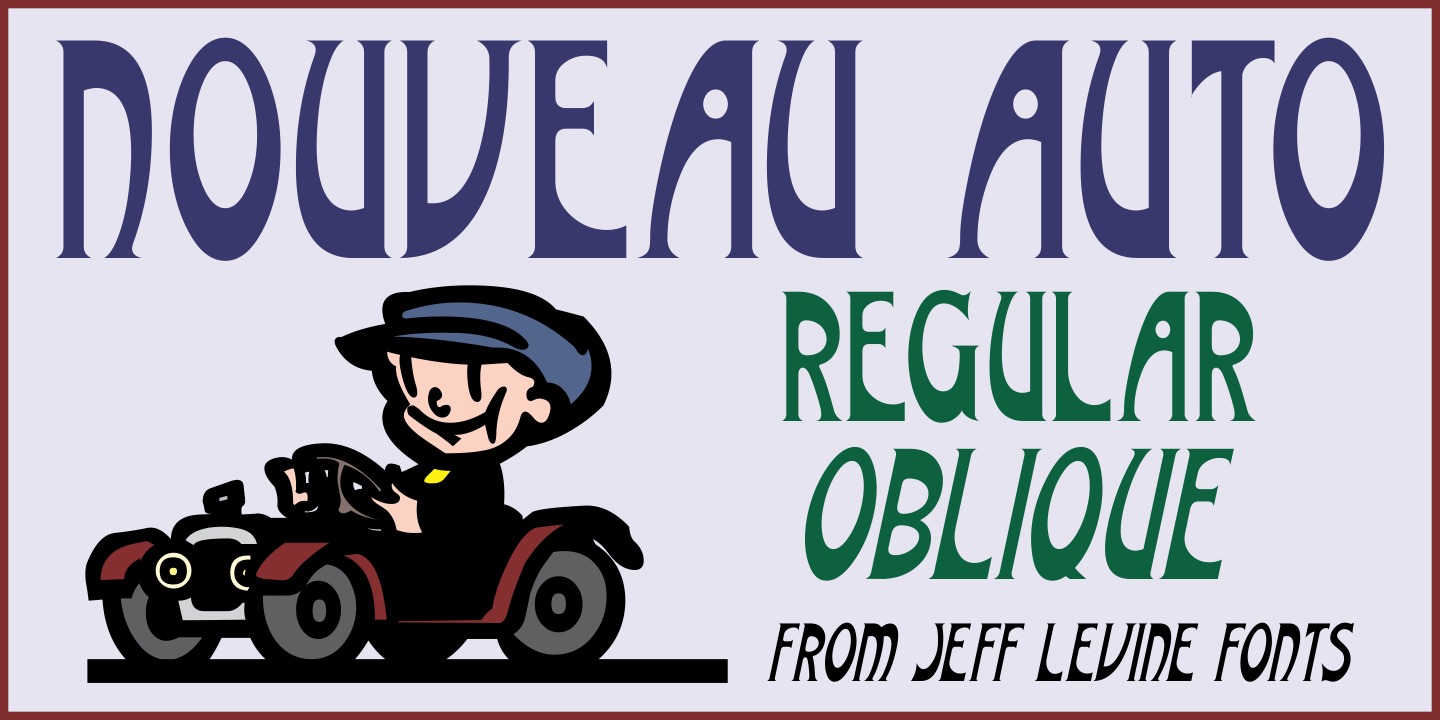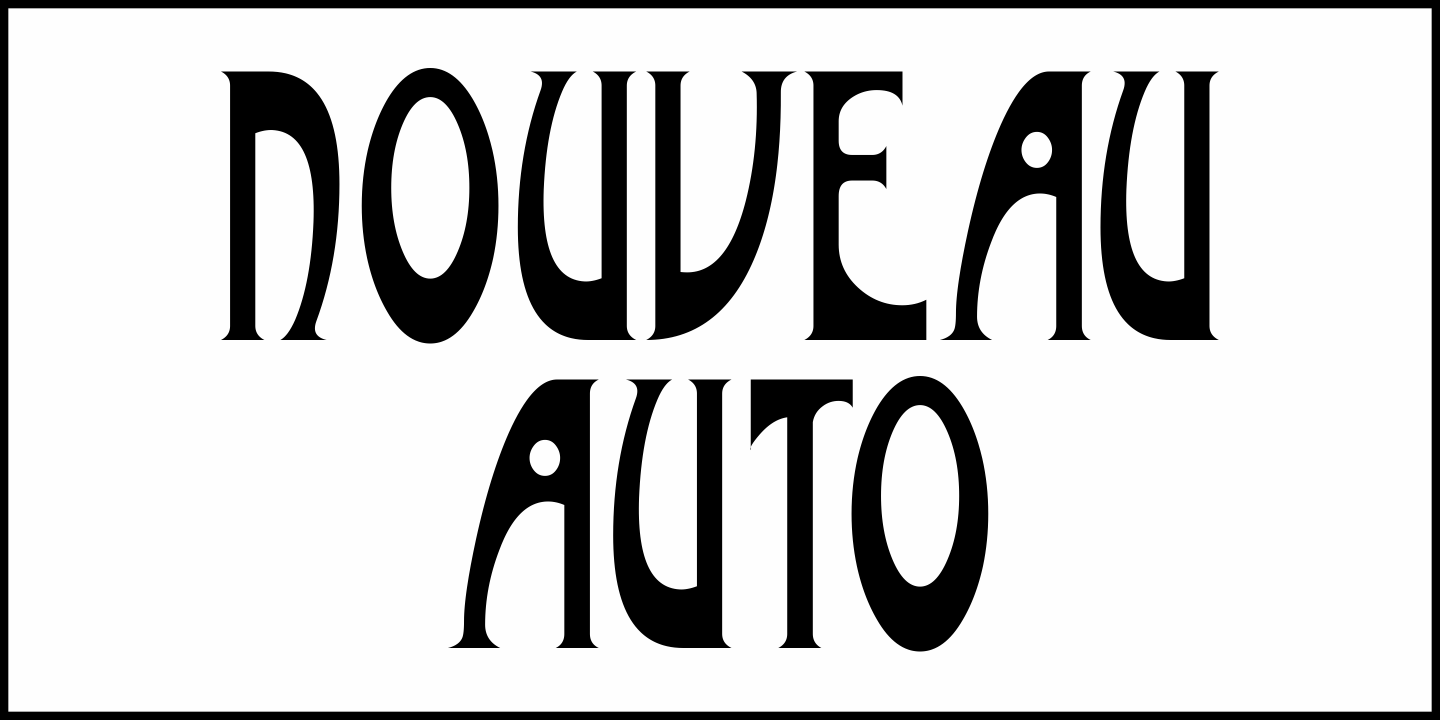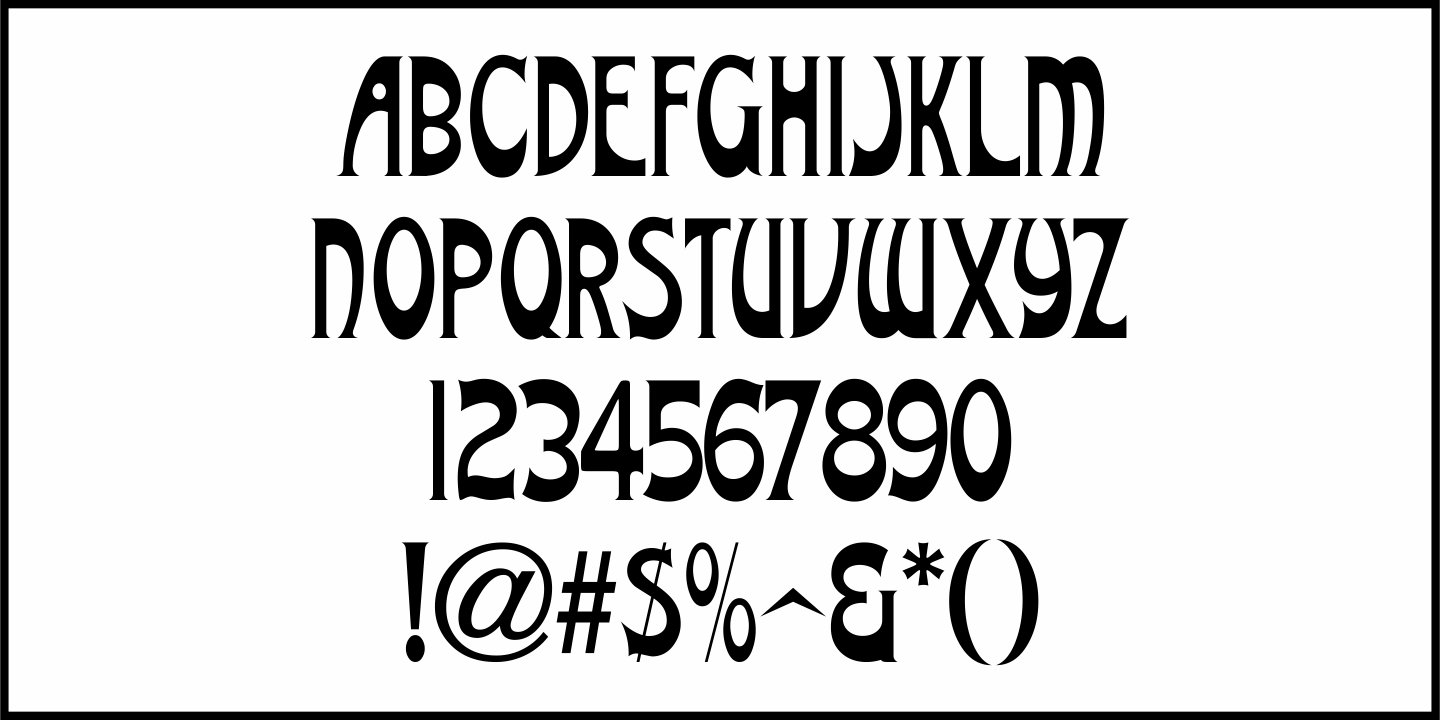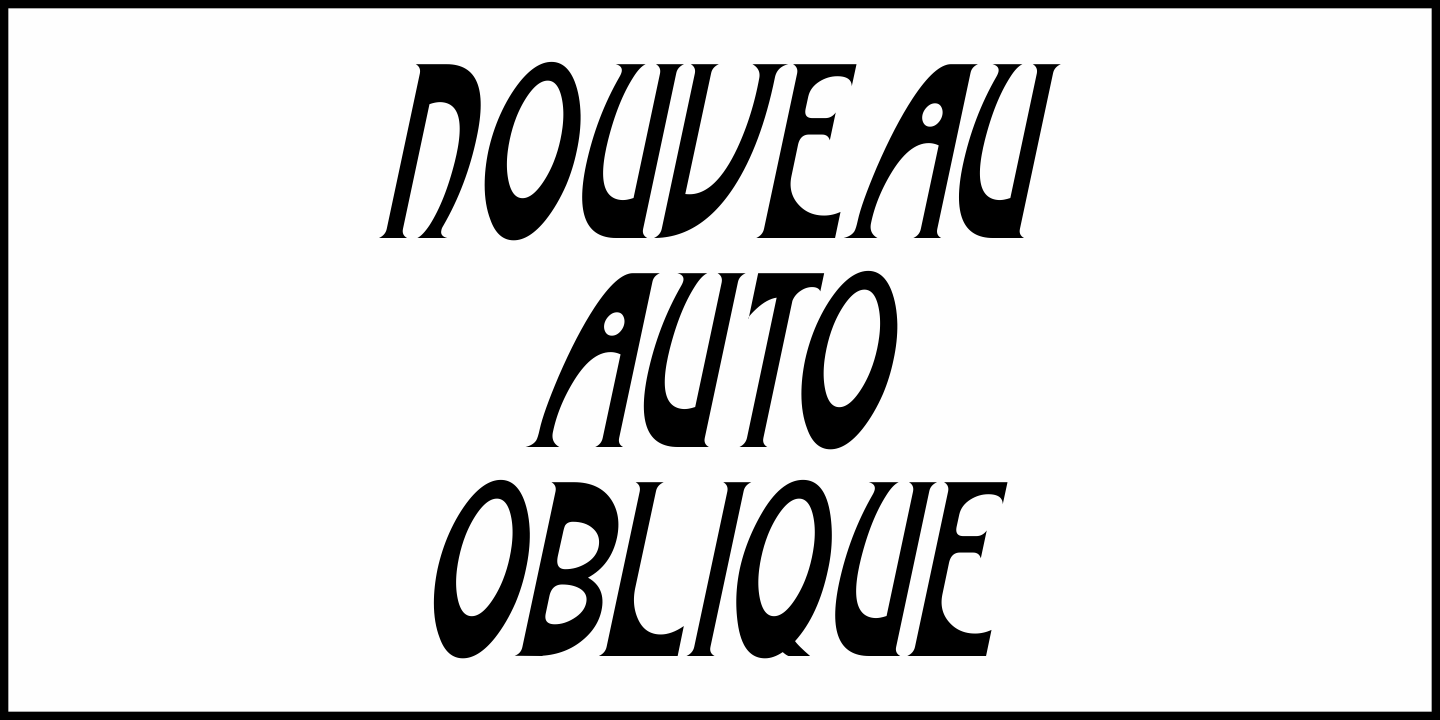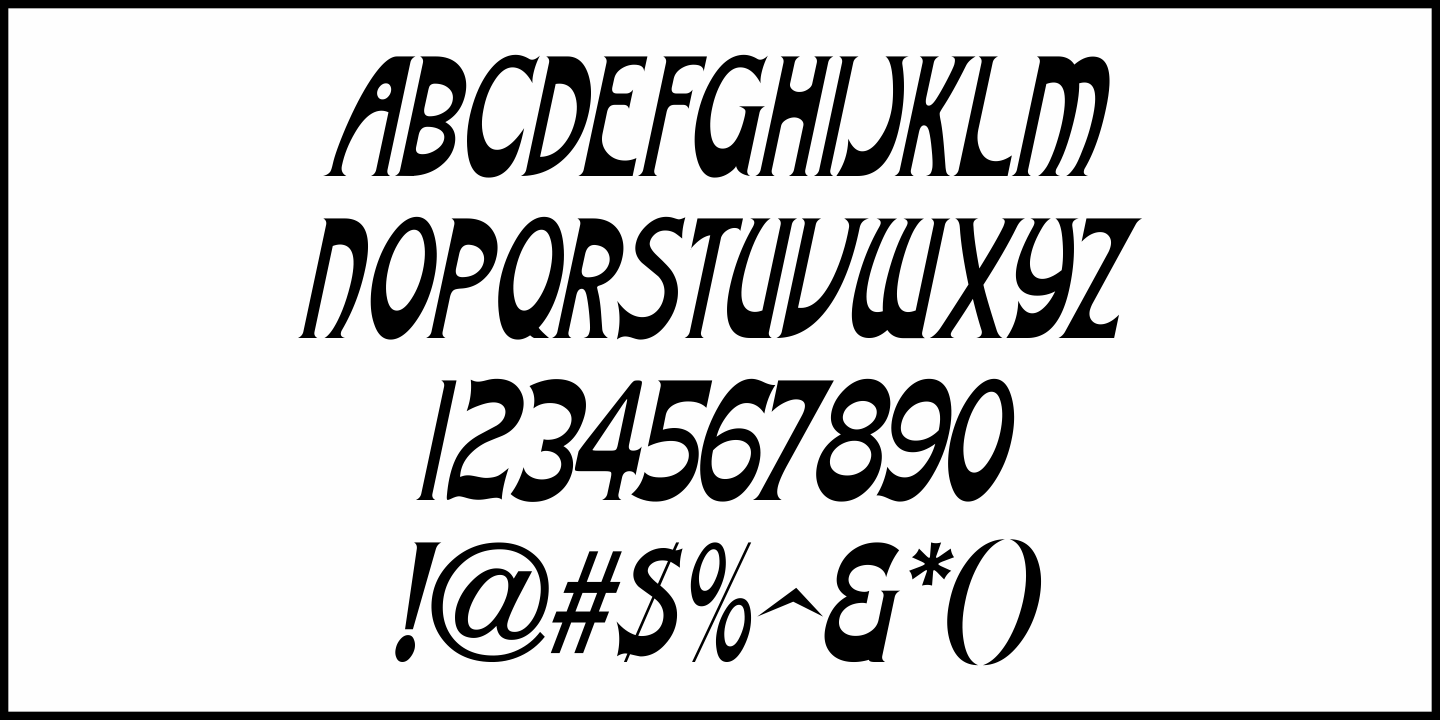
Nouveau Auto
'The Auto Show” is the title of an early 1900s pieces of sheet music proving that America has had a fascination with cars since the earliest days of the automotive industry.
The song sheet's title was hand lettered in a casual Art Nouveau style which has been re-drawn digitally as Nouveau Auto JNL, and is available in both regular and oblique versions… and what's better than a nouveau auto (a new car)?
Nouveau Auto JNL Regular by Jeff Levine Fonts